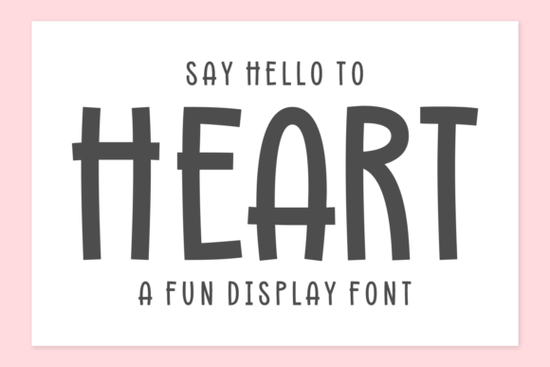
If you've been looking for a typeface that brings warmth and personality to your projects, the Heart Font Font might be exactly what you need. It's a fun display font with tall, slightly irregular letterforms that feel hand-drawn and full of character. Whether you're designing greeting cards, T-shirts, or social media graphics, Heart Font Font delivers your message with a friendly, approachable tone that connects with people right away.
What Does the Heart Font Look and Feel Like?
The Heart font has a quirky, honest quality that you'd expect from hand-painted signs or hand-lettered chalkboards. Its letterforms are tall and slightly uneven, which gives every word a natural, lived-in feel. It's not stiff or overly polished and that's the whole point. This typeface is designed to feel like a warm hug in digital form.
Think of it as the kind of font you'd see on a neighborhood bakery's menu board or a handmade gift tag at a craft fair. It communicates trust, friendliness, and a down-to-earth vibe without trying too hard. For designers and small business owners, that kind of visual tone can make a real difference in how customers connect with a brand.
What Kinds of Projects Work Best With This Font?
This is where the Heart font really shines. Because of its casual yet clean structure, it fits a wide range of creative projects:
- Custom T-shirt designs Its tall, playful letters stand out on apparel without looking cluttered.
- Greeting cards and invitations Perfect for "love-dovey" Valentine's cards, birthday notes, or thank-you messages.
- Print-on-demand products Works well on tote bags, mugs, and stickers where personality matters.
- Children's book titles and nursery art The whimsical structure feels safe and cheerful for kids' spaces.
- Classroom materials Teachers can use it for bulletin boards, worksheets, and activity headers.
- Social media graphics Great for friendly quote posts, Instagram stories, and Pinterest pins.
- Food blog headers and craft shop logos Its bold, catchy presence grabs attention without feeling aggressive.
If you run a local non-profit or a small community brand, this font helps you come across as genuine and approachable. It's the kind of typeface that makes people smile before they even read the full message.
How Should You Pair and Style the Heart Font?
The Heart font works beautifully with bright, primary colors for a fun, energetic look. Think reds, yellows, and blues on white or light backgrounds. It also pairs well with soft, earthy tones muted greens, warm beiges, and dusty pinks if you're going for a more relaxed, organic feel.
For body text, keep things simple. A clean sans-serif complements the Heart font without competing with it. You want the display font to be the star while supporting text stays readable and calm.
Here are a few pairing ideas to try:
- Heart font for headlines + a light sans-serif for body copy on a product listing page.
- Heart font in a bold color on a white tote bag design with minimal other elements.
- Heart font layered over a watercolor background for greeting cards or wall art prints.
Is the Heart Font Right for Your Next Project?
If your design needs to feel warm, honest, and full of life, the answer is probably yes. This isn't a font for corporate reports or legal documents it's for the kind of work that puts a smile on someone's face. Crafters, small business owners, and creative hobbyists will find it especially useful for everyday projects where personality counts.
Before you start designing, here's a quick checklist to make the most of it:
- ✅ Decide on your color palette first bright primaries or soft earth tones both work well.
- ✅ Choose a clean body font to pair with it so the display font stays readable.
- ✅ Test it at different sizes it looks great large on headers and still holds up on smaller labels.
- ✅ Use it on one or two elements max per design to keep things balanced.
- ✅ Think about your audience this font speaks to warmth and connection, so use it where that tone fits.
Start with one project a greeting card, a social post, or a product mockup and see how the Heart font fits into your creative workflow. You might be surprised at how much a single typeface can shift the entire feeling of a design.